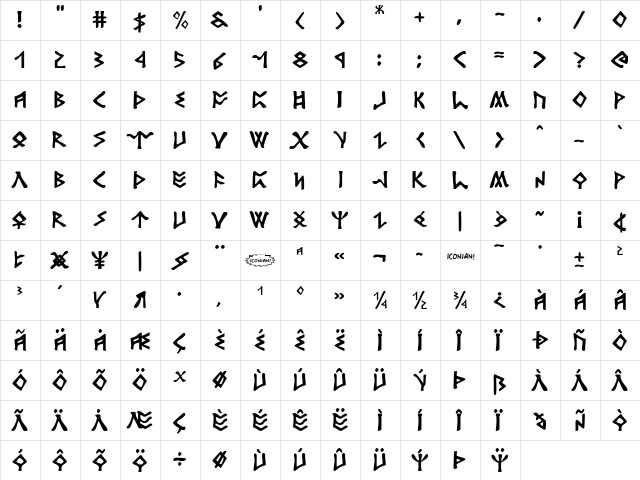
Rosicrucian Regular
Design Context for Rosicrucian Typeface
Rosicrucian is a composed and adaptable typeface that performs quietly and consistently across a wide range of design contexts.